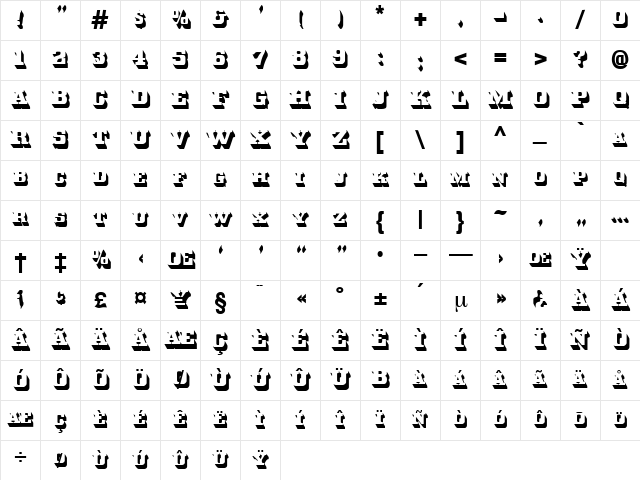
Baltimore Regular
Baltimore Family
Baltimore Regular
Design Context for Baltimore
Baltimore is a composed and adaptable typeface that performs quietly and consistently across a wide range of design contexts.
Pro Tip: Use Baltimore in both headline and body roles to test its range before committing to a single application.